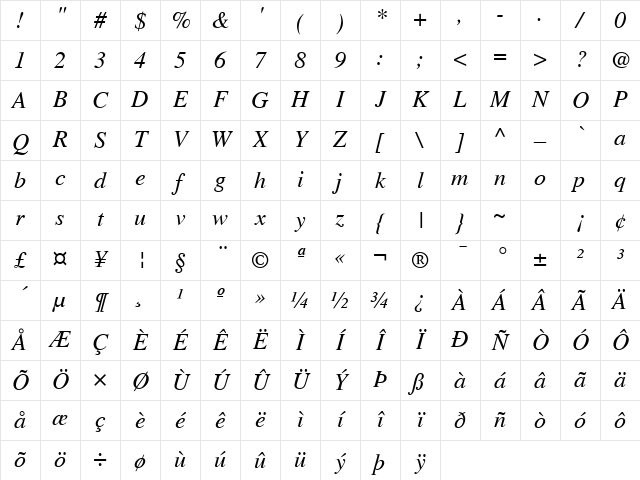
News Serif ITALIC
Style: ITALIC
Complete News Serif ITALIC glyph index. Displaying only characters natively supported by News Serif ITALIC font.
Design Context for News Serif
News Serif carries the refined structure of traditional serif typography, with bracketed terminals and considered proportions that communicate credibility and craft. The slanted form adds forward momentum and visual energy.